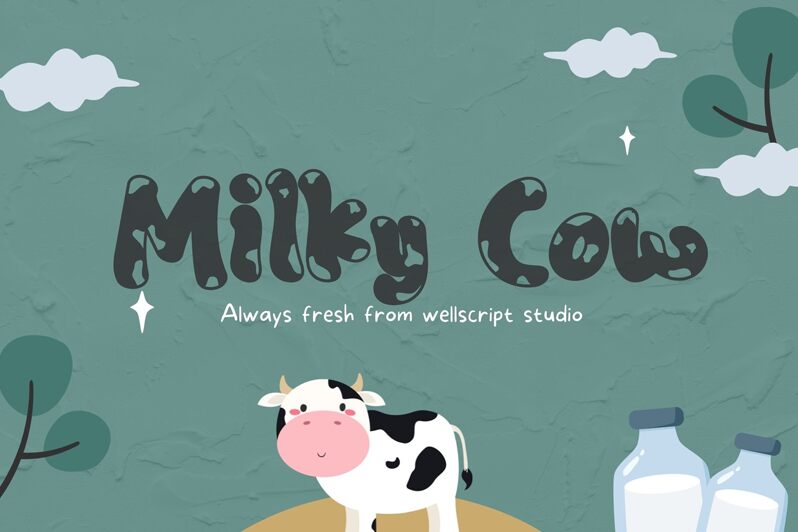
Milky Cow
Milky Cow, a bold and playful display font designed by Wellscript Studio, is here to add a touch of whimsy to your projects. With its cartoon-inspired style, this font is perfect for children's books, animated videos, and birthday party invitations. Whether you're creating a vibrant logo or designing eye-catching posters, Milky Cow will bring your designs to life with its fun and energetic personality. Embrace the creativity and versatility of this font as you embark on various projects that require a touch of delightful charm.
Wellscript Studio